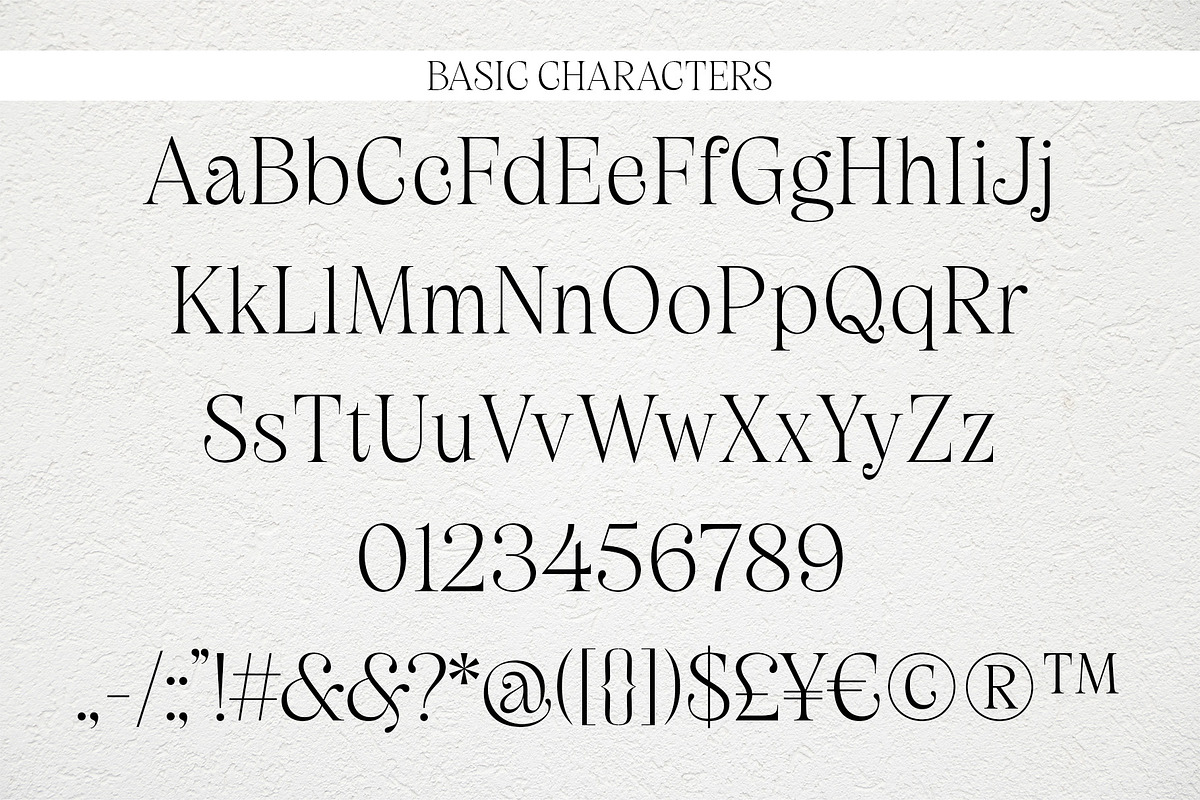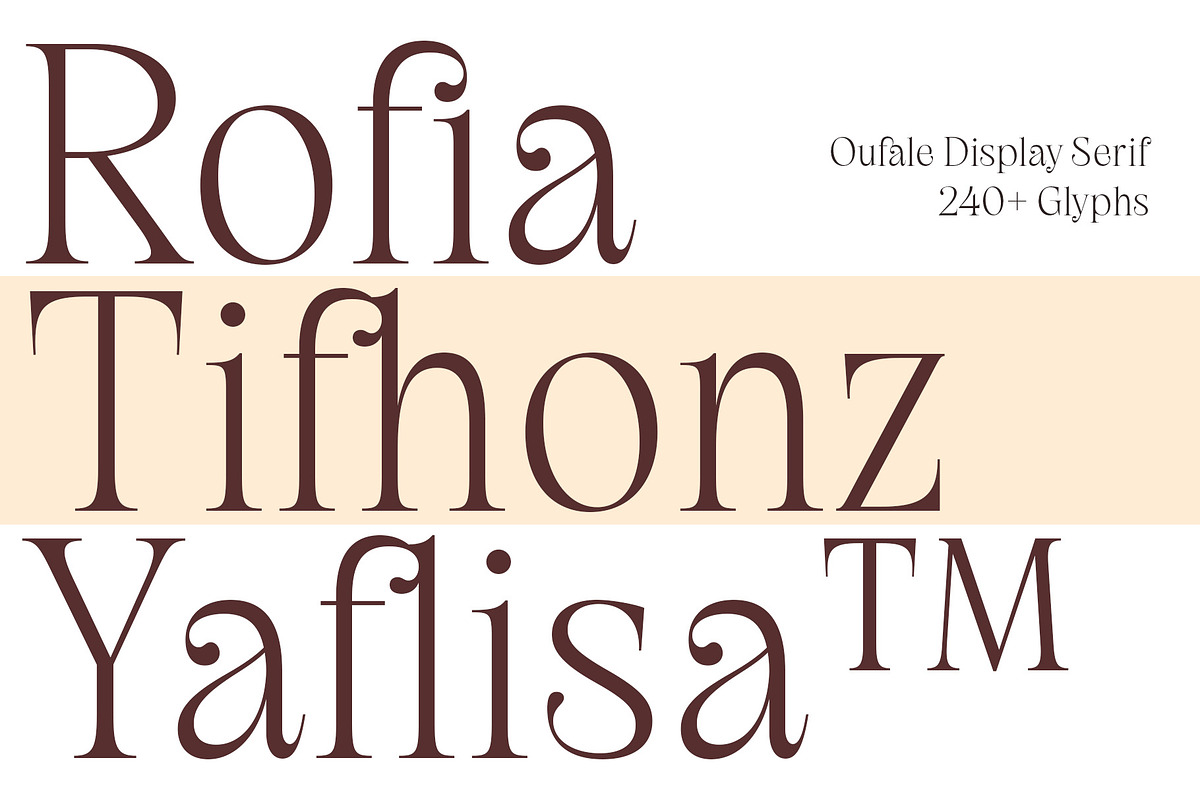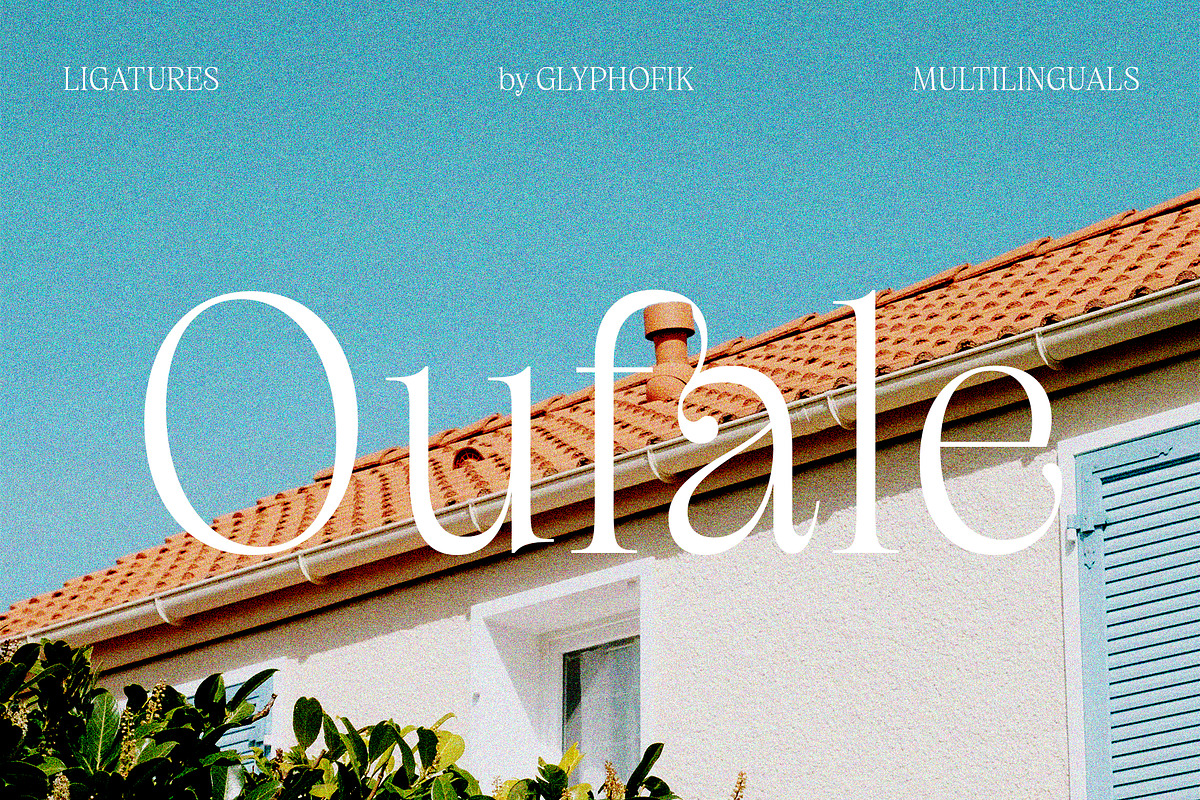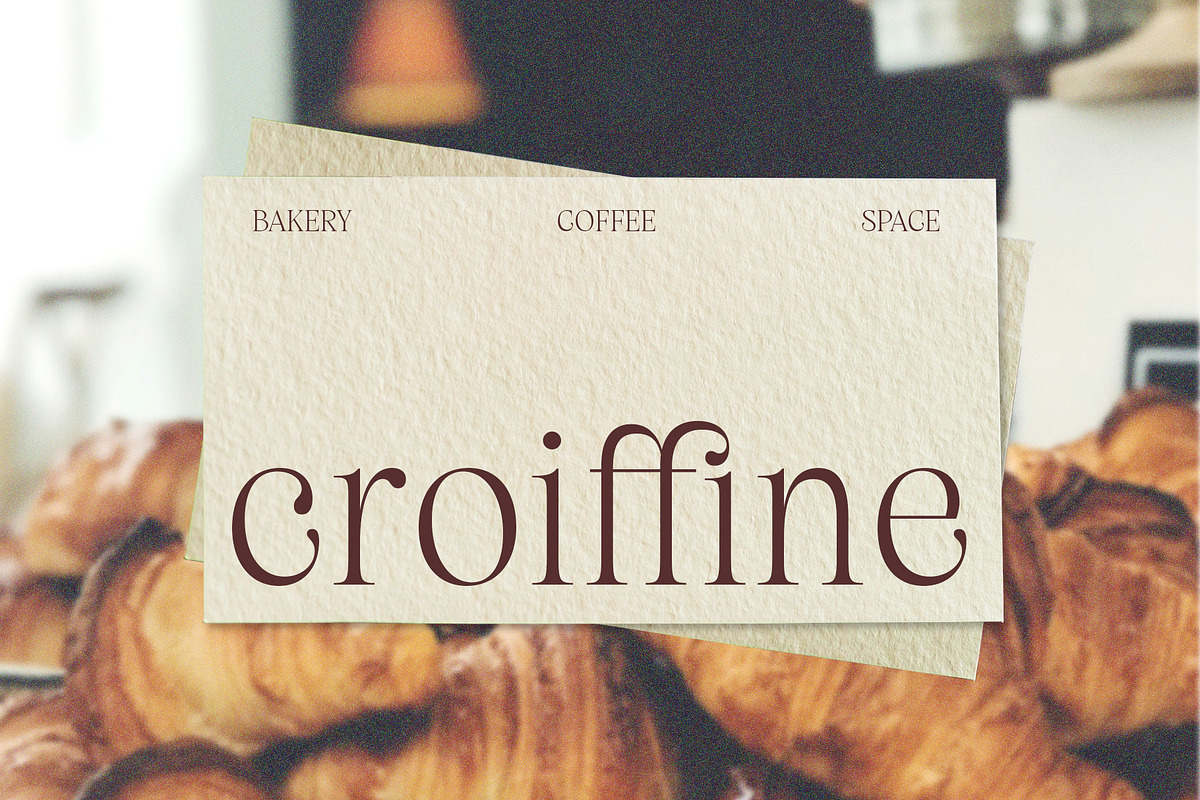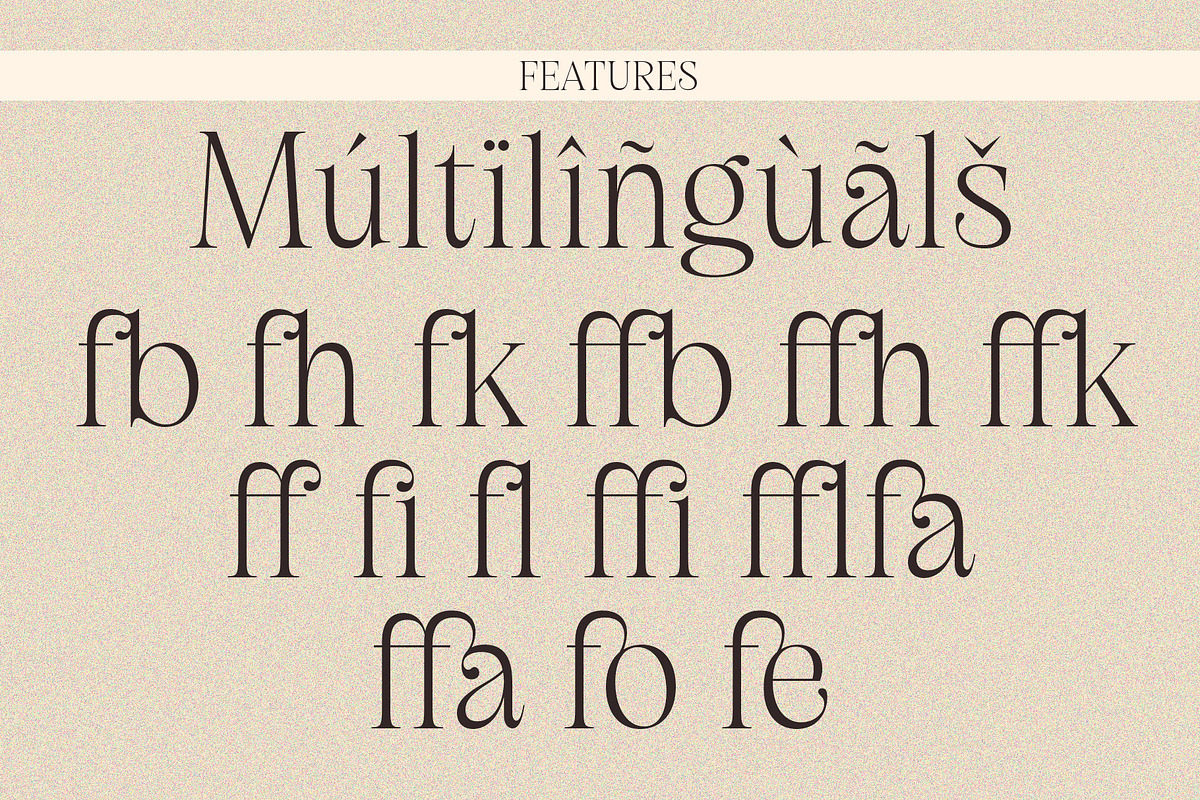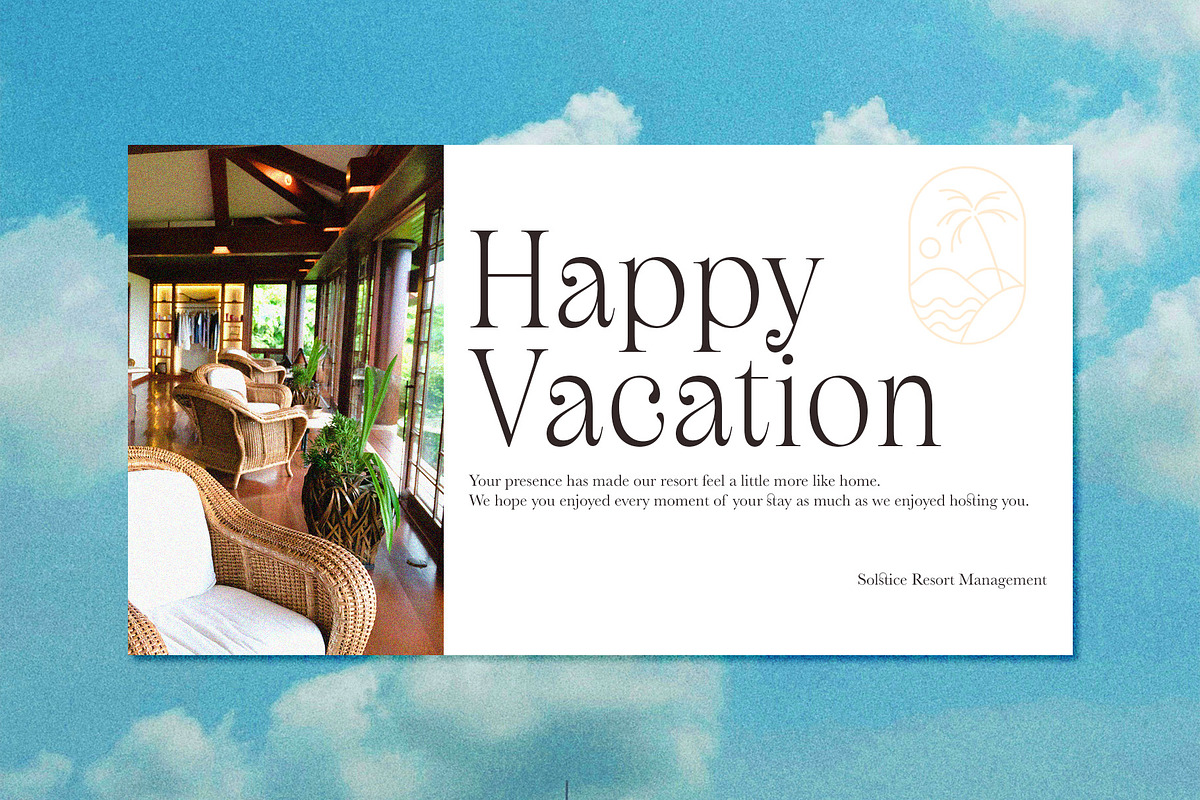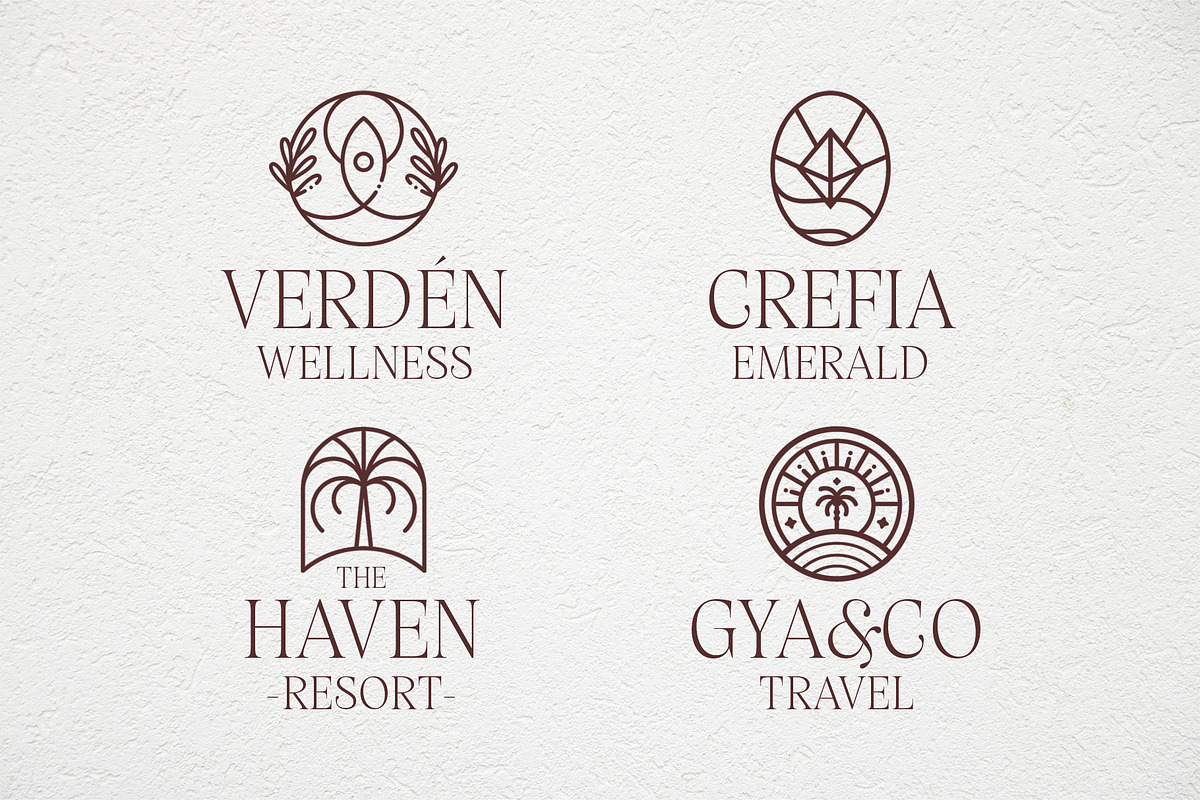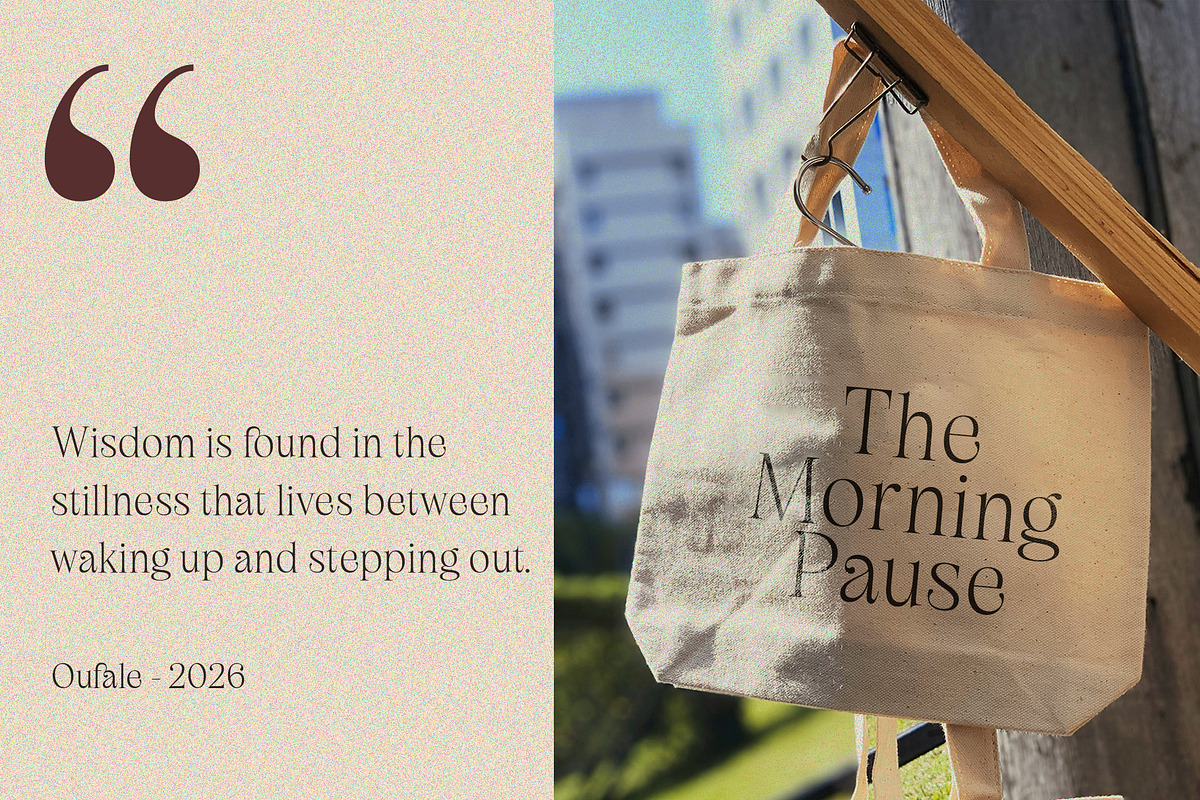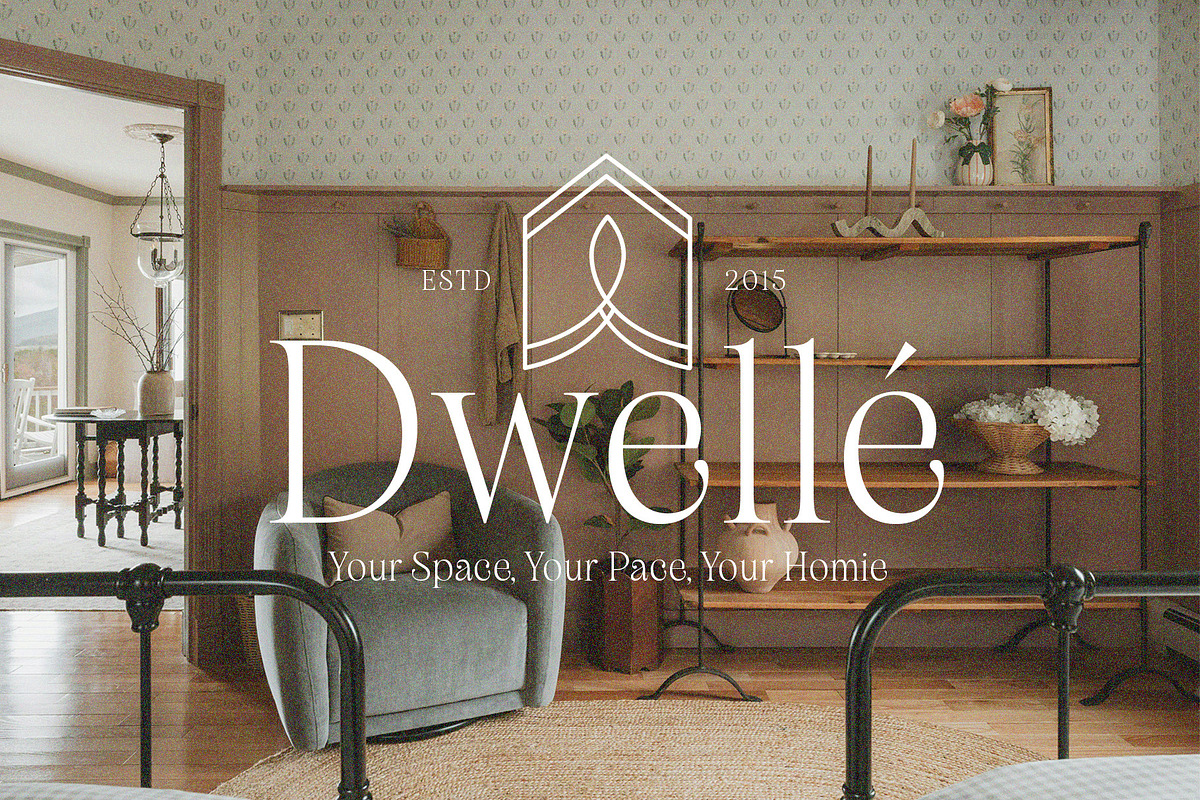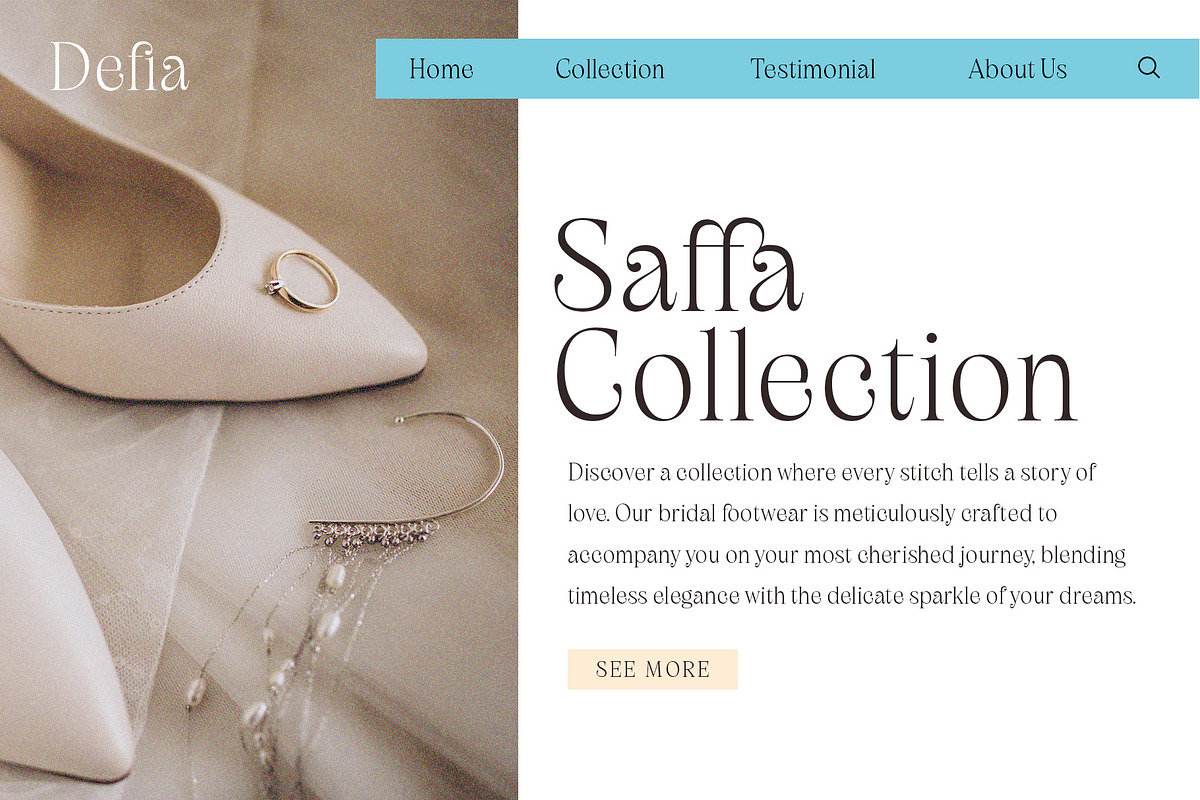
Oufale - Feminine Display Serif
Oufale is a high-contrast feminine display thin serif with a large x-height — drawn from the tradition of classic elegance and refined for the contemporary eye. Whether shaping a headline, defining a logo or wordmark, or lending gravitas to a short quote, Oufale brings a rare quality to the page: the kind of beauty that feels both intentional and inevitable.